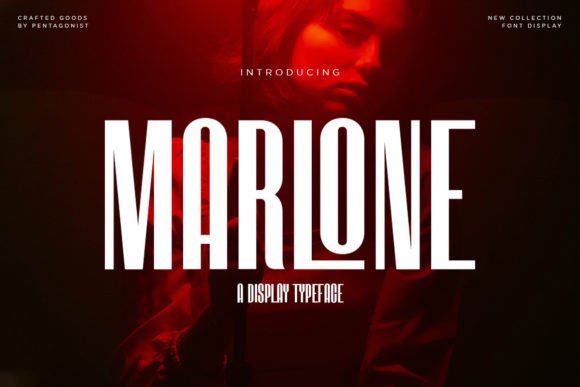
Welcome to the world of Marlone Font, where creativity meets nostalgia! Marlone, our exquisitely crafted display font, is a masterpiece that effortlessly captures the essence of vintage charm with a modern twist. As a creation of Pentagonistudio, Marlone is not just a font; it's an experience waiting to be explored.
Marlone's inherent retro charm is beautifully balanced by an undeniable contemporary appeal, making it the perfect choice for designers seeking a unique and eye-catching font. Its carefully crafted curves and distinct letterforms exude an aura of sophistication that is sure to leave a lasting impression.
Imagine your designs adorned with Marlone's enchanting presence. Its captivating characters will elevate your banners, logos, shopping bags, cards, book covers, and magazines to new heights of elegance. Marlone possesses the uncanny ability to transform ordinary designs into extraordinary creations, leaving your audience mesmerized.
But Marlone's versatility doesn't end there. Its inherent charm extends beyond traditional print media, making it the ideal font for web design and digital creations. Whether you're crafting a dynamic website, an engaging social media post, or a captivating online advertisement, Marlone will effortlessly elevate your digital presence.
With Marlone by your side, you'll never run out of creative possibilities. Its timeless appeal ensures that it will remain relevant and stylish for years to come. Join the ranks of discerning designers who have discovered the magic of Marlone Font and unlock a world of creative expression.